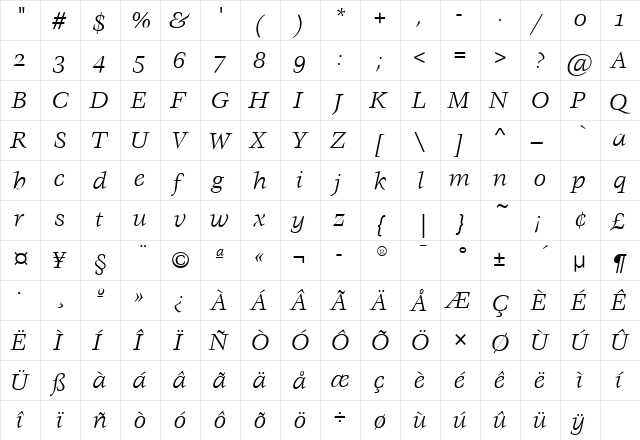
VeljovicOSITC Italic Font Preview
VeljovicOSITC Italic
VeljovicOSITC Italic Font Details
Design Context for VeljovicOSITC Typeface
VeljovicOSITC offers clean, dependable letterforms without strong stylistic allegiance, making it a practical choice for designers who need flexibility. Its italic angle brings a sense of urgency and motion to the letterforms.
Pro Tip: Try VeljovicOSITC for annotation and caption copy alongside an upright companion — the contrast in angle creates a dynamic but ordered typographic system.